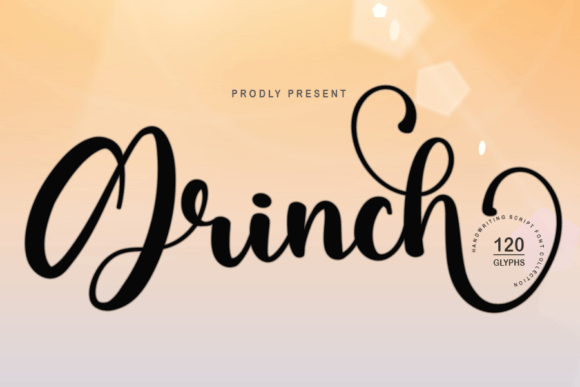
| 📌 Product Name | Grinch Font |
Enter the Grinch Font, a stylish handwritten font that’s sure to captivate your audience. With its contemporary atmosphere and impeccable form, this font is the perfect addition to any project. Whether you’re working on a blog post, a logo, or a social media campaign, the Grinch Font will elevate your design to new heights. Its balanced and varied style makes it versatile and easy to use, allowing you to focus on what matters most – your creativity.
For designers, the Grinch Font is a valuable tool that will help you stand out in a crowded market. Its unique style and sophistication will give your projects a professional touch, setting you apart from the rest. So why settle for an ordinary font when you can have the Grinch Font, the perfect companion for your next creative endeavor?
Grinch Font Key Features
- Unique Characteristics: The Grinch Font features a distinctive, hand-drawn feel with bold lines and playful letterforms, giving it a unique and eye-catching appearance.
- Script and Language Support: The font supports a wide range of languages, including Latin, Cyrillic, and Greek scripts, making it suitable for multilingual designs.
- Kerning and Ligatures: The font includes advanced kerning and ligature pairs, ensuring smooth text rendering and a professional appearance.
Grinch Font Review
When I first saw the Grinch Font, I was immediately drawn to its unique and quirky aesthetic ✨. The font’s irregular shapes and mismatched letterforms evoke a sense of playfulness and whimsy that’s perfect for adding a touch of humor to your design projects.
One of the things that really stands out about the Grinch Font is its versatility ✨. It can be used for a wide range of applications, from children’s book titles to social media graphics and even advertisements. The font’s bold, attention-grabbing style is sure to make a statement and capture the viewer’s attention.
- Unique and quirky aesthetic ✨
- Perfect for adding a touch of humor to design projects
- Versatile and can be used for a wide range of applications
- Bold and attention-grabbing style
- May not be suitable for formal or professional designs due to its playful nature ⚠️
- Some users may find the font’s irregular shapes and mismatched letterforms distracting or difficult to read ⚠️
Overall, I think the Grinch Font is a fun and creative addition to any designer’s toolkit. While it may have some limitations, its unique style and versatility make it a great choice for designers looking to add a touch of whimsy to their projects.
Grinch Font is perfect for creating festive and playful designs, especially during the holiday season.
Grinch Font can add a whimsical touch to your illustrations and graphics.
Grinch Font is perfect for creating eye-catching titles and headings.
Use Grinch Font for:
- Holiday-themed designs and decorations.
- Children’s book illustrations and graphics.
- Festive social media posts and advertisements.
Codon Font
Codon Font is a modern sans-serif font that offers a similar aesthetic to Grinch Font but with a more subtle, versatile design. It’s ideal for use in digital products, logos, and branding materials. Codon Font is more legible and has a larger character set compared to Grinch Font.